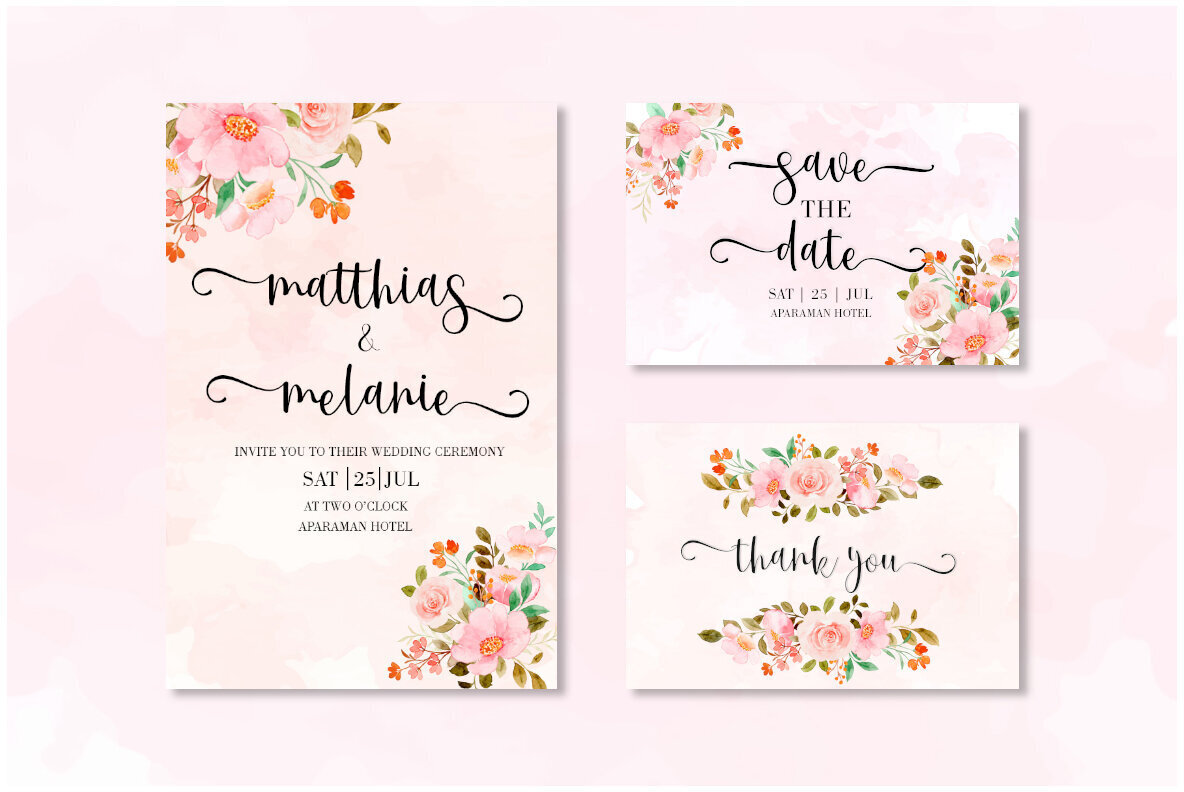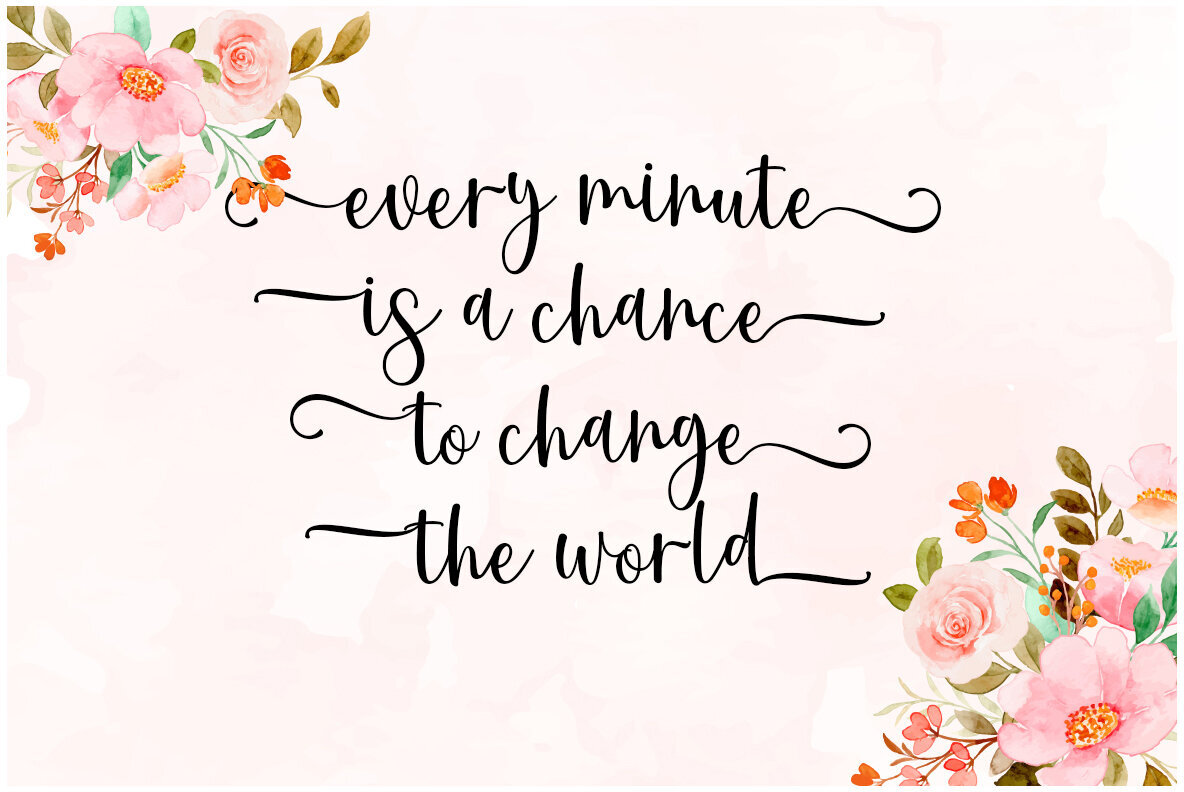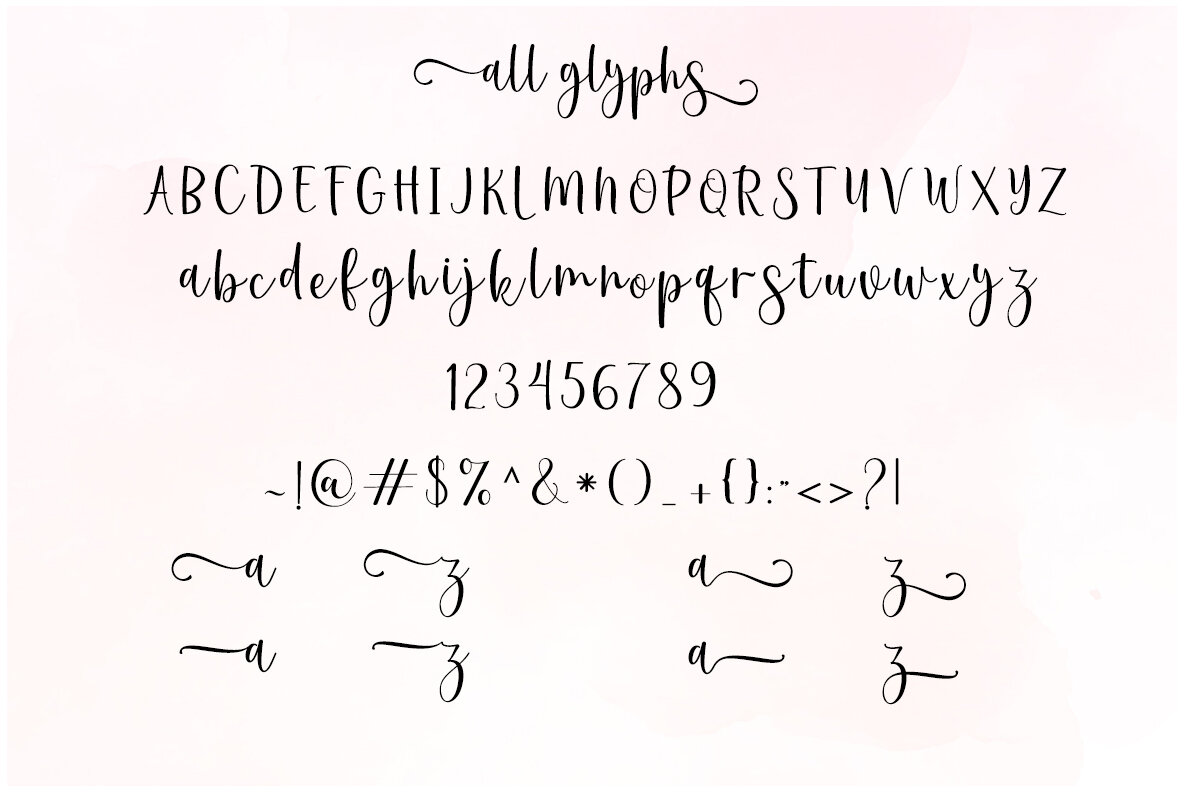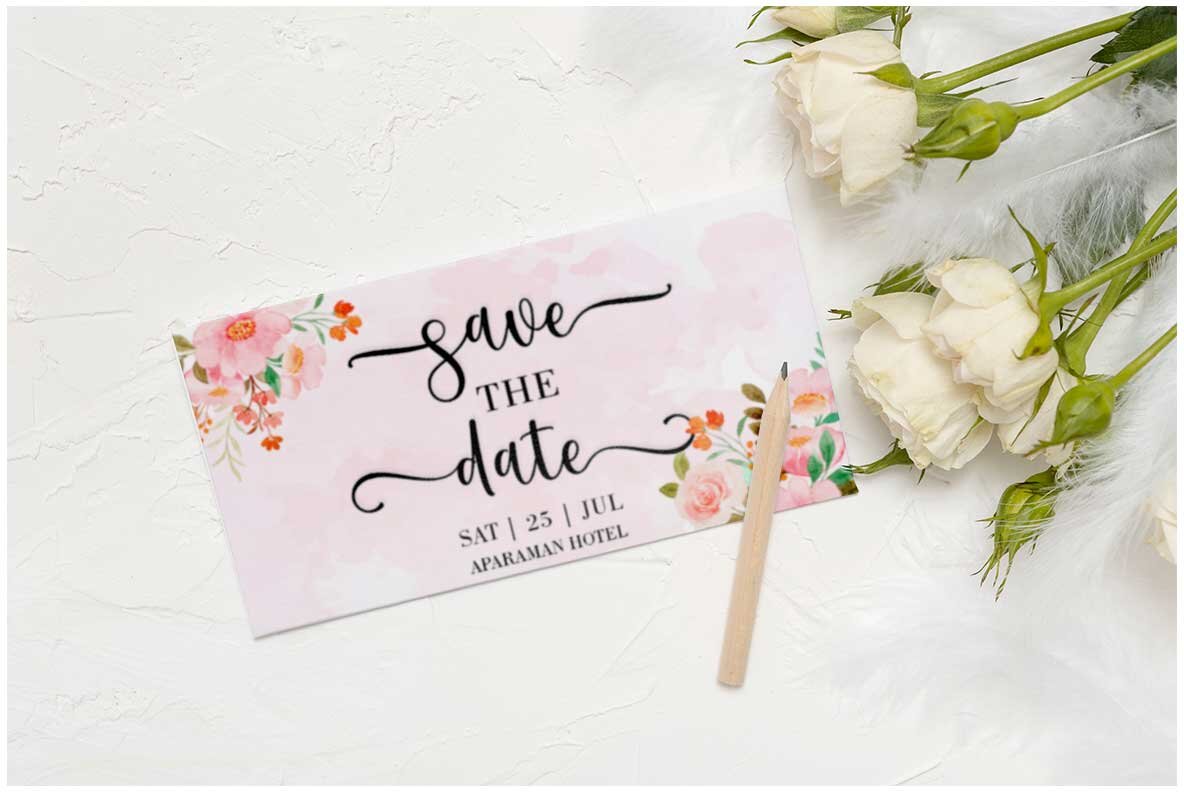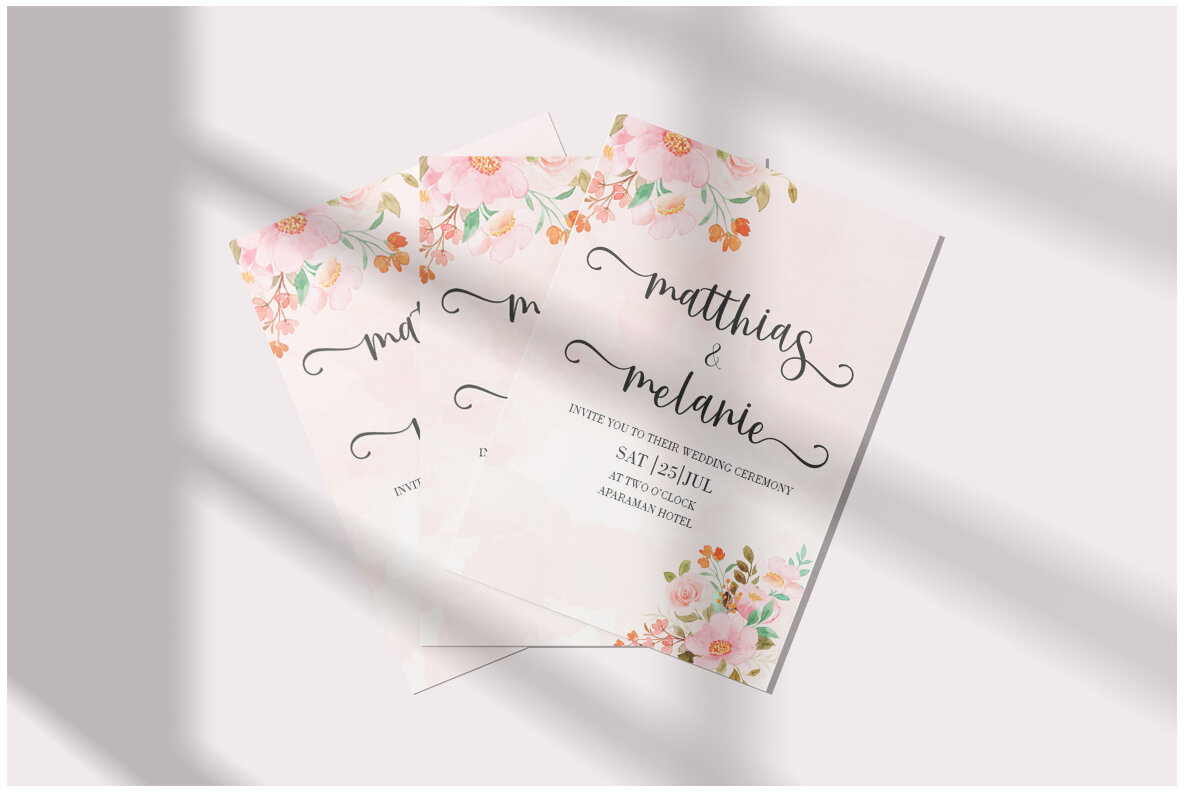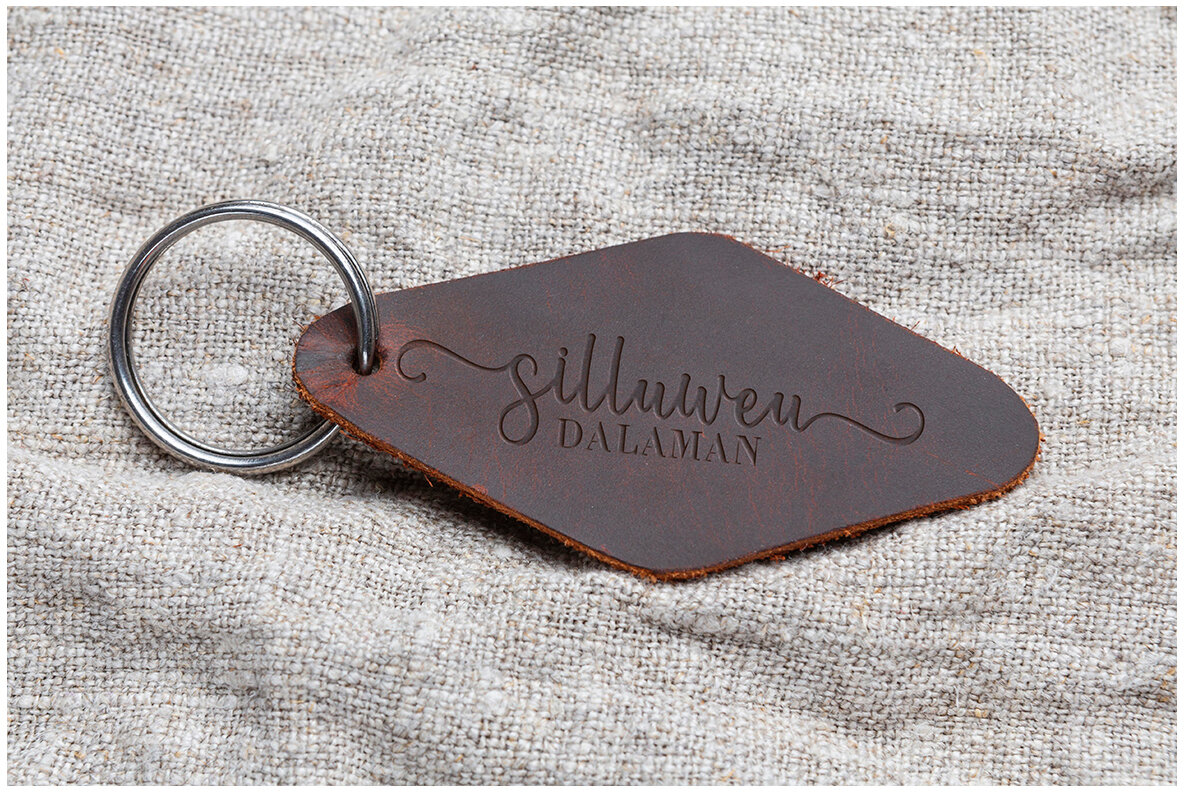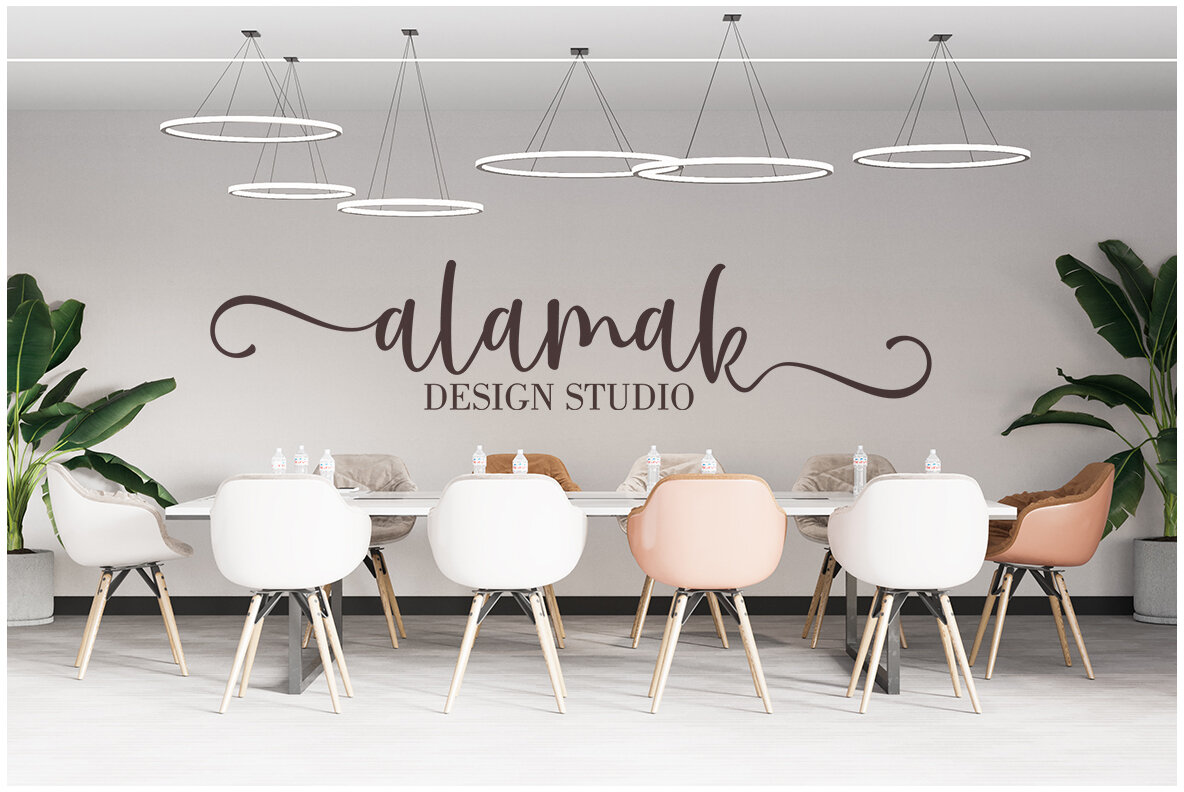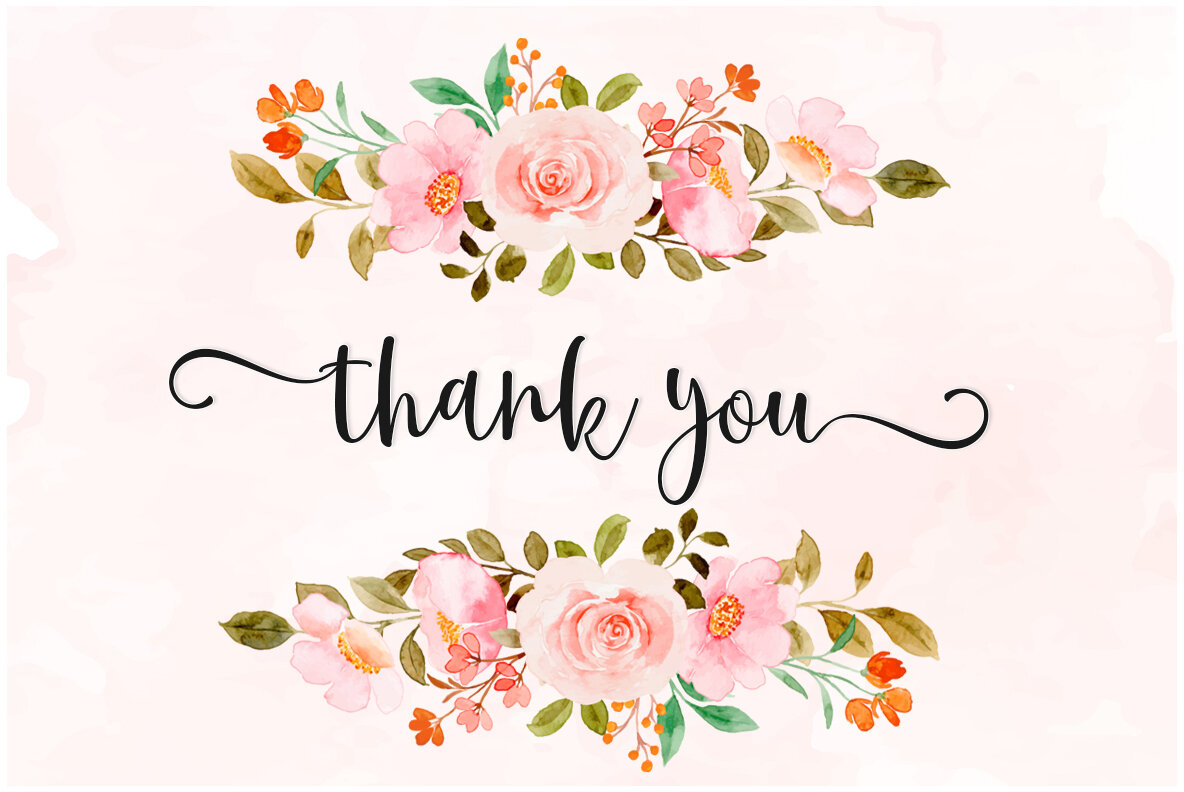
First Time Font
First Time
First Time is a captivating script font, renowned for its versatility and charm. Boasting over 250 glyphs, this font offers a wide array of alternative characters including swashes, stylistic sets, stylistic alternates, and contextual alternates. These features are tailored to enhance creative projects, providing designers with boundless possibilities in customization. First Time is compatible with OpenType-savvy programs, ensuring seamless integration into your workflow. Programs such as Adobe Illustrator, Adobe InDesign, Adobe Photoshop, Corel Draw X versions, and even Microsoft Word can easily access these features. Additionally, this font is equipped with PUA unicode, allowing full access to all its alternate characters. This feature makes it an ideal choice for craftsmen and designers seeking to explore its full potential.First Time: Delicate Script with Elegant Alternatives